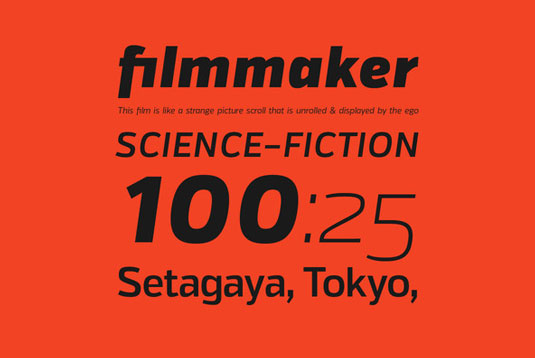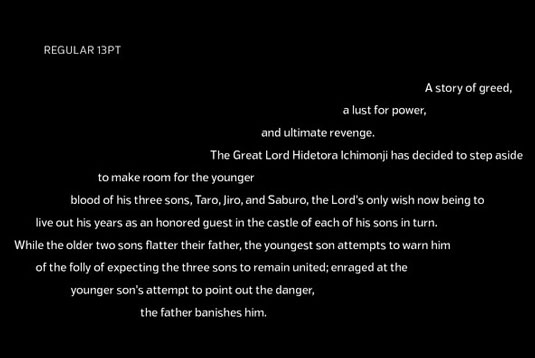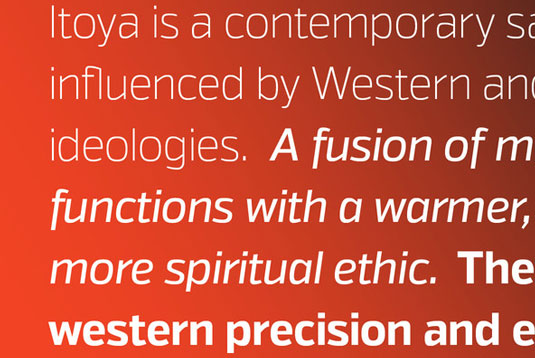
Font of the day: Itoya
Itoya from The Northern Block
A contemporary, sans serif font influenced by Western and Japanese ideologies, Itoya was created by the team at The Northern Block.
Available from font foundry YouWorkForThem, Itoya is described as 'a fusion of modern machine-like functions with a warmer, emotional and more spiritual ethic. The marriage of a western precision and eastern expression forms a sharp functional font with a modern edge ideally suited to graphic novels, fashion and product design'.